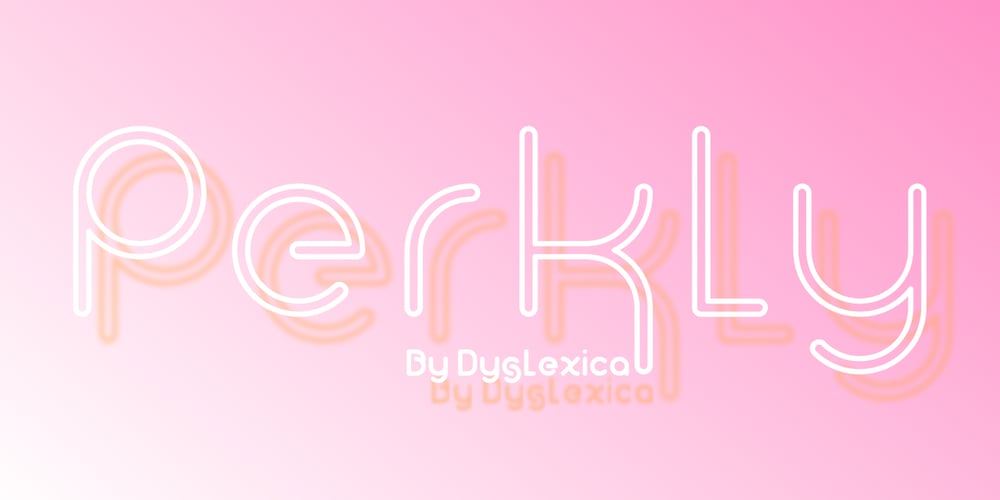
Perkly Font Family was designed by Robert Goodman and published by Dyslexica. Perkly contains 7 styles and family package options. The theme of Perkly came from trying to envision a font that was easy to read yet had a distinctly unique look. Another neat feature of Perkly is that all its weights have the same overall spacing, meaning different weights can be layered over each other, allowing a lot of versatility.